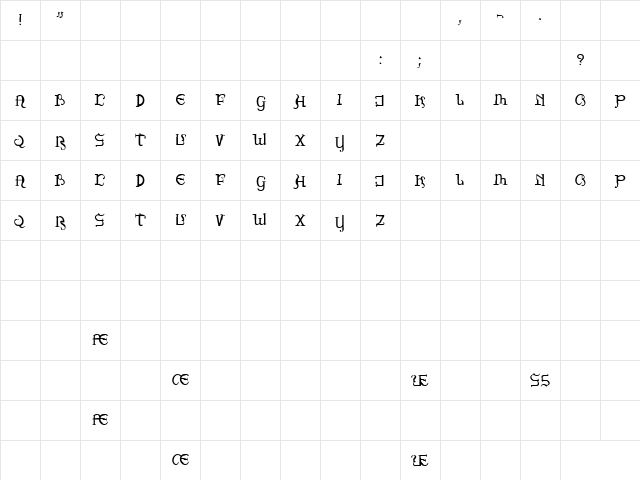
PiratesDrake Regular
Design Context for PiratesDrake
PiratesDrake is a composed and adaptable typeface that performs quietly and consistently across a wide range of design contexts.